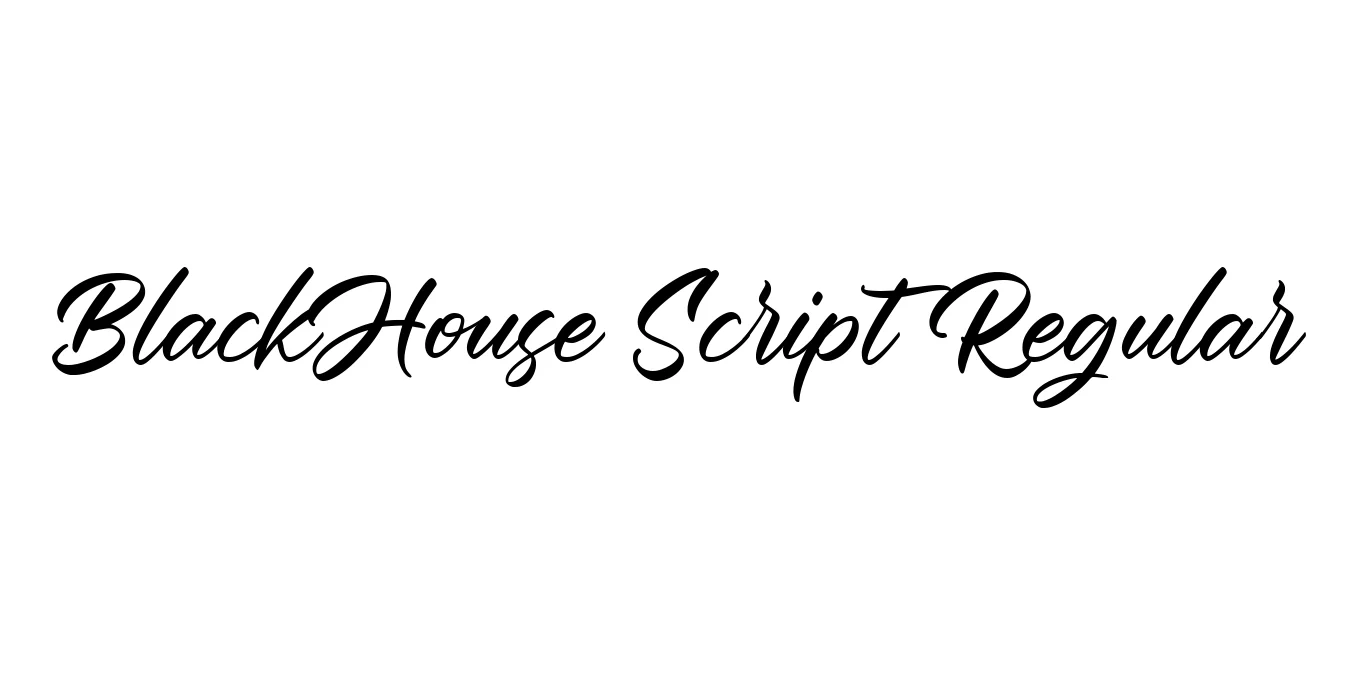
BlackHouse Script Regular
Designed by The Docallisme
| Category | Calligraphy Script |
| Designer | The Docallisme |
BlackHouse Script Regular originated as a contemporary exploration of hand-lettered calligraphy, blending urban street aesthetics with sophisticated brushwork. Developed by The Docallisme, it was designed to bridge the gap between gritty logotypes and high-end editorial scripts, capturing a sense of spontaneous movement and raw energy that is often lost in more rigid digital typefaces.
Expert analysis reveals that the typeface features a medium x-height that balances legibility with expressive flourishes. Its visual weight is distributed with a high-contrast ratio between thick downstrokes and hair-thin connectors, characteristic of traditional pointed-pen scripts. The letterforms exhibit aggressive terminals and fluid ligatures that maintain a cohesive rhythm, ensuring that even at larger display sizes, the rhythm of the baseline remains grounded and professional while allowing for significant decorative impact.
BlackHouse Script Regular Best Uses
Creating impactful logos for lifestyle and fashion brands.
Ideal for luxury labels and boutique product wrappers.
Perfect for stylized quotes and high-engagement headers.
Adds a sophisticated yet modern touch to invitations.